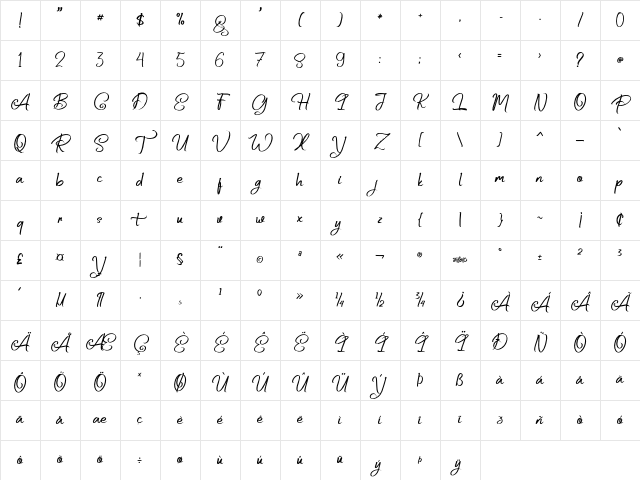
Butter Milky Personal Use Script
Style: Script
Designer: Ferry Hadriyan
Design Context for Butter Milky Personal Use
Butter Milky Personal Use flows with the natural rhythm of handwritten lettering, making it ideal for designs that call for warmth and personal expression.
Font Pairing: Combine Butter Milky Personal Use with a simple geometric sans for maximum contrast - the tension between flowing curves and clean structure is a classic typographic pairing.
Pro Tip: Use Butter Milky Personal Use for short runs of text - names, titles, or taglines. Extended body copy in script faces tires the eye quickly.